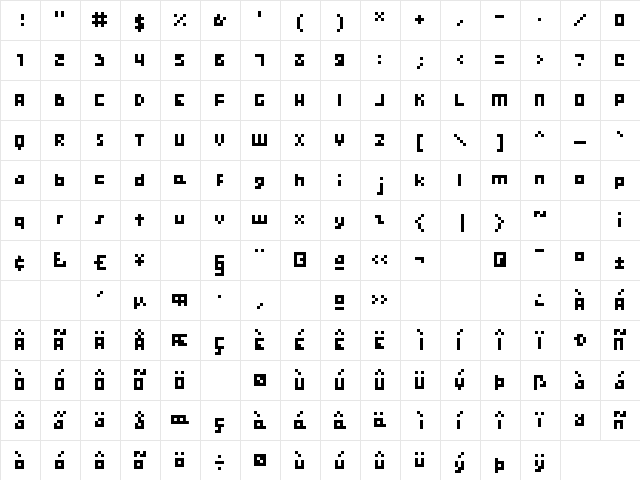
hooge 04_55 Regular
Design Context for hooge 04_55 Typeface
hooge 04_55 is a composed and adaptable typeface that performs quietly and consistently across a wide range of design contexts.